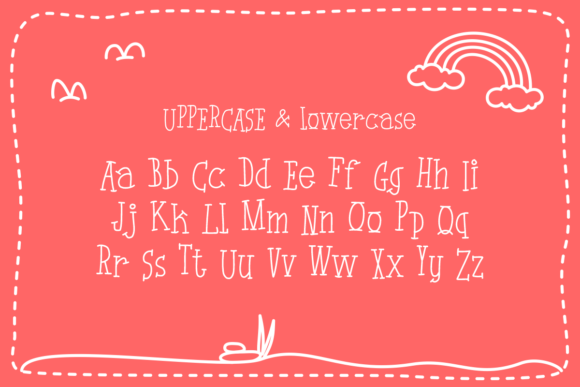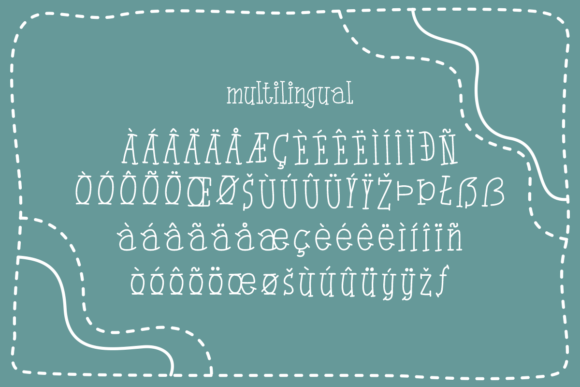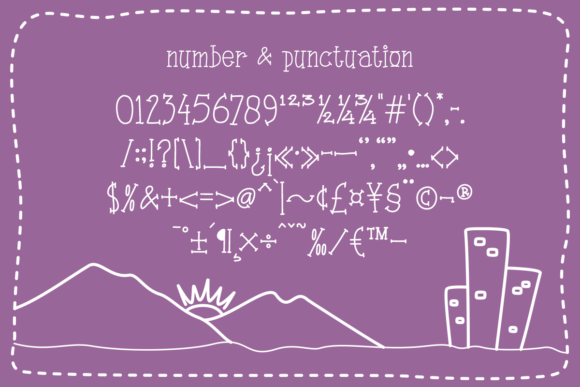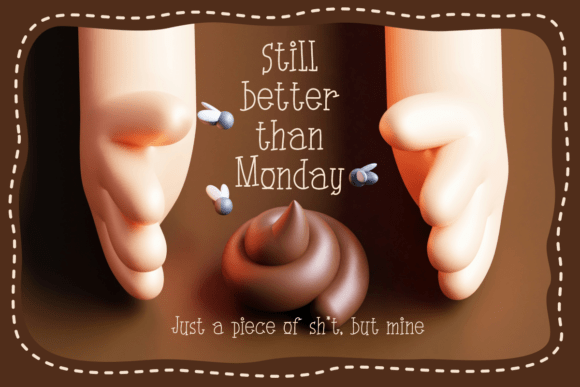
Introducing Flinksy Font: The Playful, Handcrafted Display Font for Creative Designs
Are you tired of using the same old fonts for your designs? Look no further than Flinksy Font, a playful and handcrafted display font that brings a touch of fun and personality to every project. With its quirky letterforms and organic shapes, Flinksy stands out from typical display fonts, giving your work a unique, human-made charm that’s sure to capture attention.
The Unique Characteristics of Flinksy Font
Flinksy Font boasts a sketchy, handmade style that makes it ideal for bringing warmth and authenticity to any design. Its playful and imaginative flair is perfect for a wide range of creative projects, from greeting cards and classroom materials to cheerful brand identities and whimsical product labels. The font’s organic shapes and quirky letterforms add a friendly and approachable touch to any design, making it perfect for creators who love to combine creativity with a sense of humor.
What Makes Flinksy Font So Versatile?
One of the standout features of Flinksy Font is its versatility. The font includes uppercase, lowercase, numbers, punctuation, and multilingual support, totaling 223 glyphs to cover a wide range of creative needs. This means that you can use Flinksy Font for a variety of projects, from branding and children’s books to packaging, posters, and social media designs.
Flinksy Font is designed specifically for creators who love to combine creativity with a sense of humor. Whether you’re a designer, crafter, or DIY enthusiast, Flinksy Font is the perfect choice for anyone looking to add a touch of personality and whimsy to their work. With Flinksy Font, you can create unique and eye-catching designs that are sure to stand out from the crowd.
Use Flinksy Font for a Wide Range of Projects
Flinksy Font is perfect for a wide range of projects, including:
- Branding: Add a touch of personality and whimsy to your brand identity with Flinksy Font.
- Children’s Books: Bring your children’s book to life with Flinksy Font’s playful and imaginative flair.
- Packaging: Add a touch of whimsy to your product packaging with Flinksy Font.
- Posters: Create eye-catching posters with Flinksy Font’s bold and playful style.
- Greeting Cards: Add a personal touch to your greeting cards with Flinksy Font’s handmade style.
- Social Media Designs: Stand out on social media with Flinksy Font’s unique and playful style.
Why Choose Flinksy Font?
So why choose Flinksy Font for your next project? Here are just a few reasons:
- Unique and Playful Style: Flinksy Font’s quirky letterforms and organic shapes make it stand out from typical display fonts.
- Handmade Style: Flinksy Font’s sketchy, handmade style adds a touch of warmth and authenticity to any design.
- Versatile: Flinksy Font includes uppercase, lowercase, numbers, punctuation, and multilingual support, making it perfect for a wide range of creative needs.
Get Ready to Add Some Personality to Your Designs
In conclusion, Flinksy Font is a playful, handcrafted display font that brings a touch of fun and personality to every design. With its quirky letterforms, organic shapes, and handmade style, Flinksy Font is perfect for a wide range of creative projects, from branding and children’s books to packaging, posters, and social media designs. So if you’re looking for a font that will add some personality and whimsy to your work, look no further than Flinksy Font.